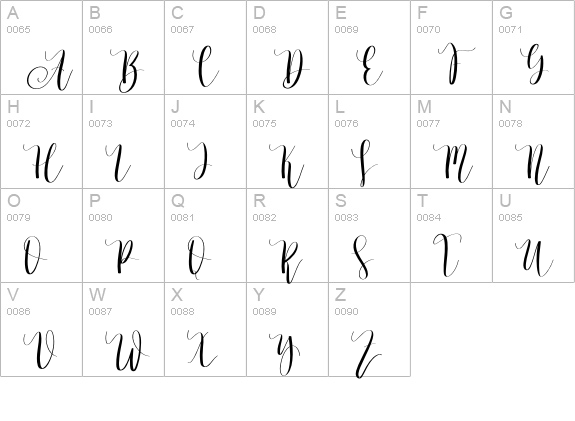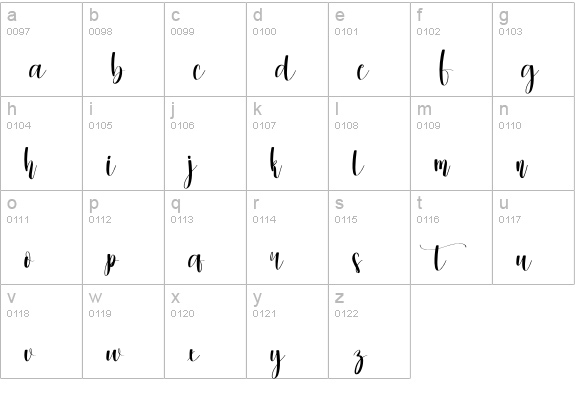
Christmas Valentine Font Details
Christmas Valentine is a free for personal use font in the Script > Handwritten category, designed by scratchones. It has been downloaded 8 times and is available for Windows, Mac and Linux.
Introducing Christmas Valentine font, the perfect choice for adding a touch of festive charm to your projects! This whimsical and playful font captures the spirit of both Christmas and Valentine's Day, making it ideal for holiday-themed designs. Its unique blend of cheerful curves and elegant swashes will bring a sense of joy and love to your creations.